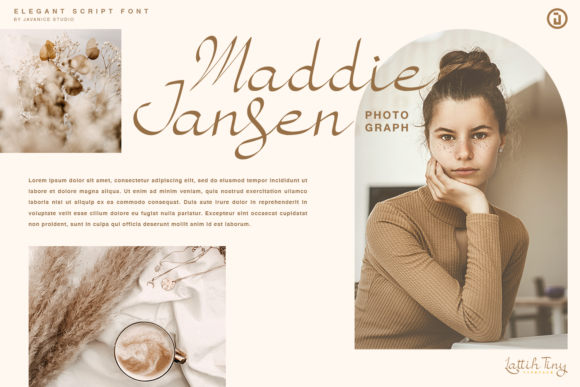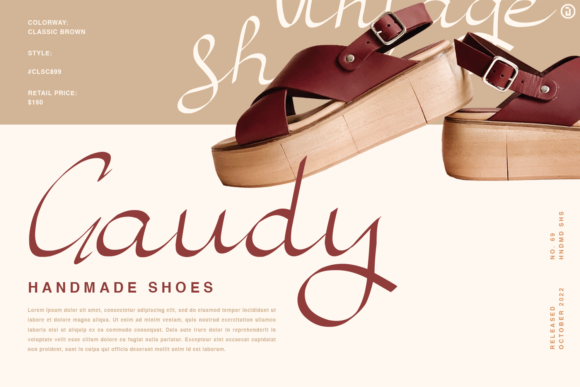
Lattih Tiny Font
db-ku.com - Script & Handwritten -- Lattih Tiny is a gorgeous and slim handwritten font. It is perfect for product packaging, branding project, magazine covers, social media, wedding, or just used to express words above the background.